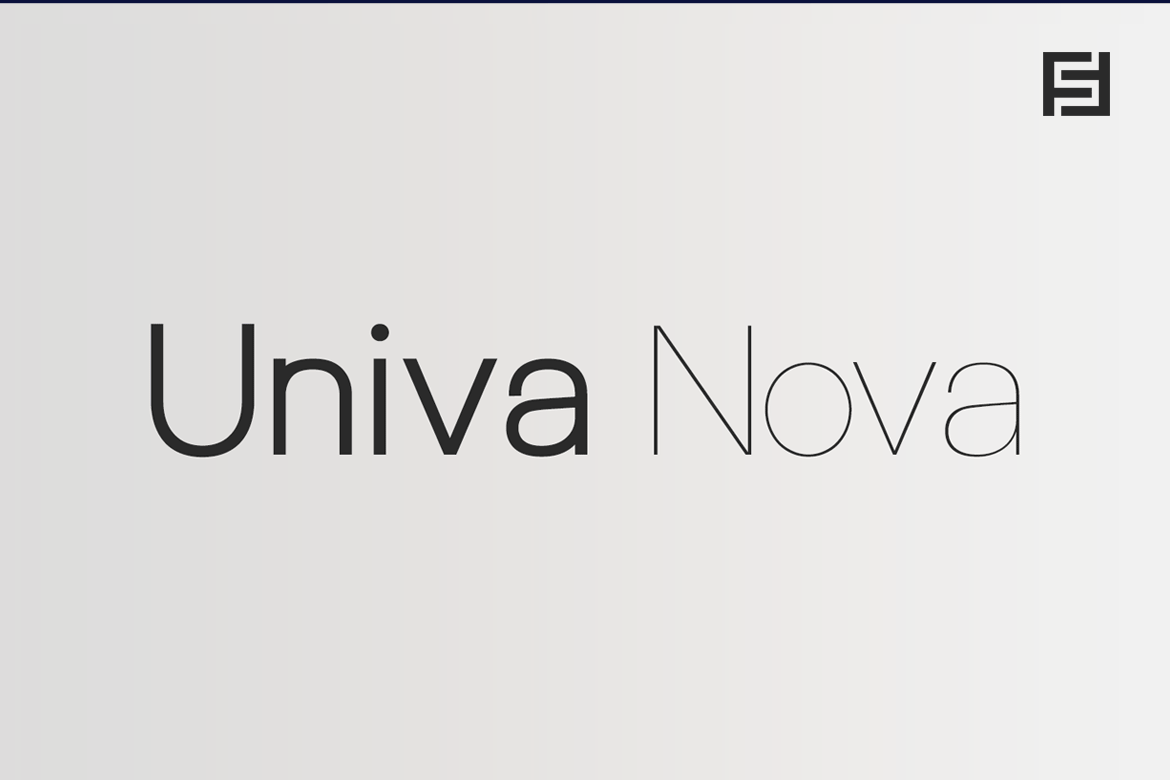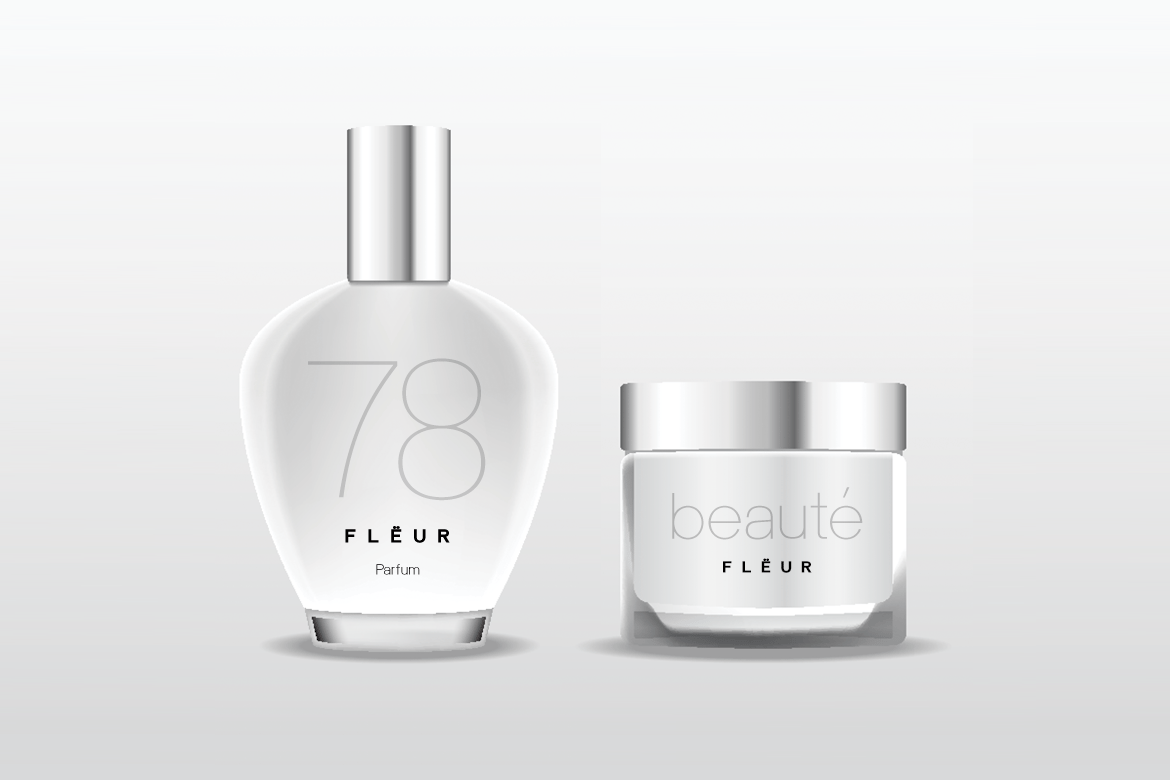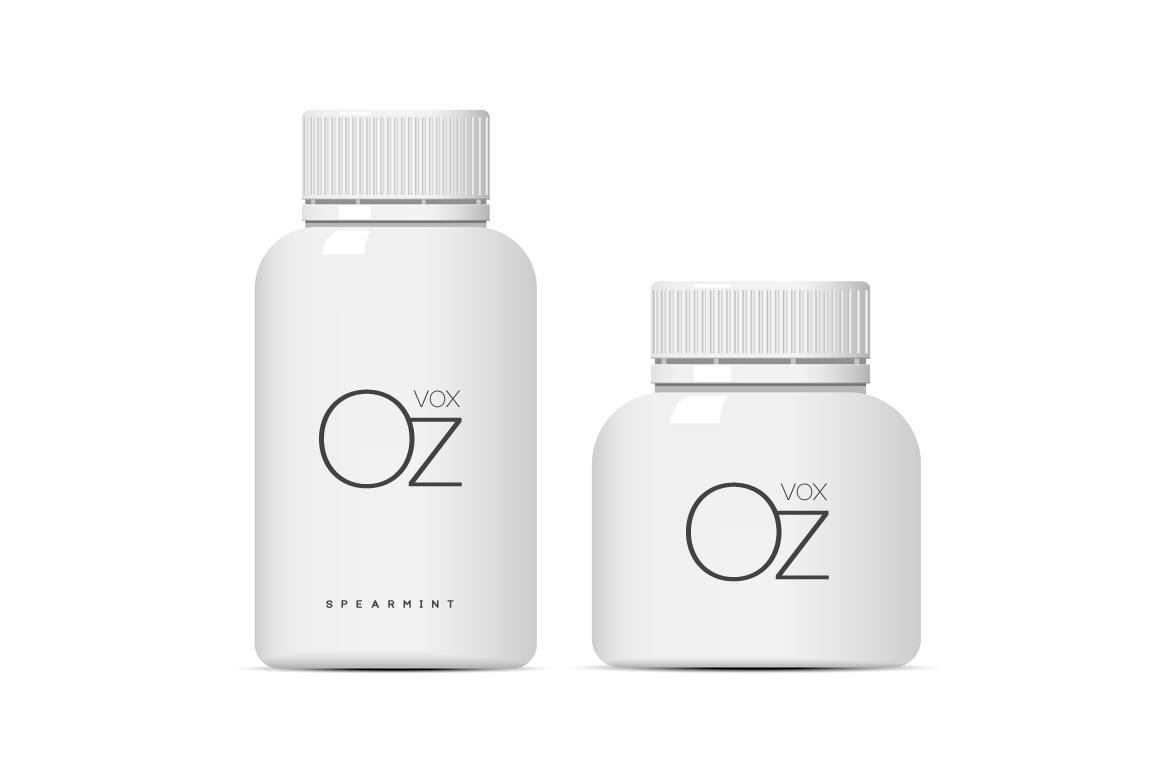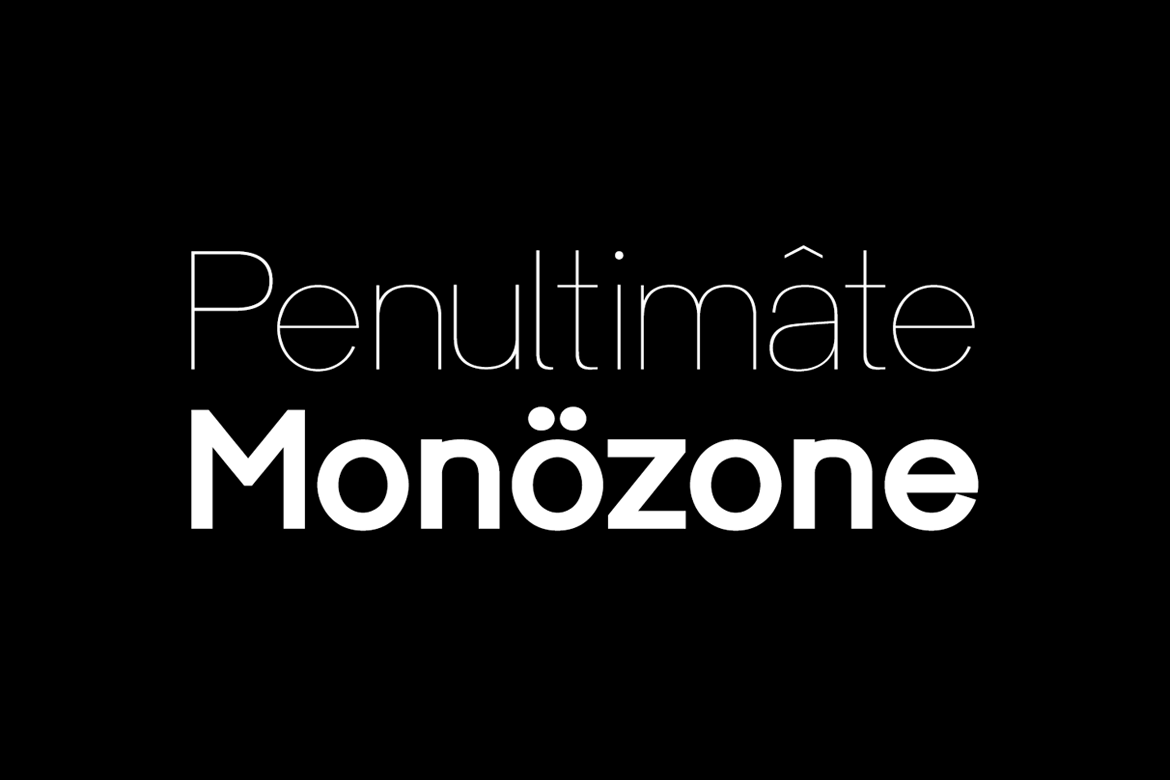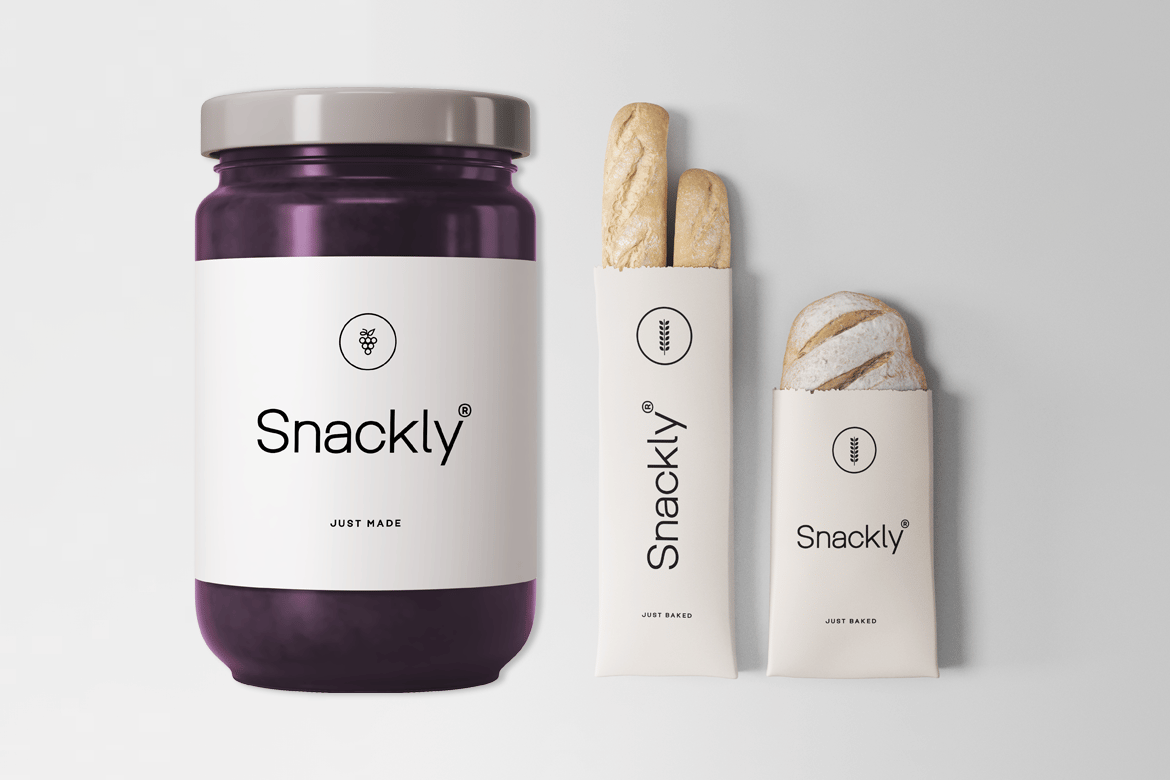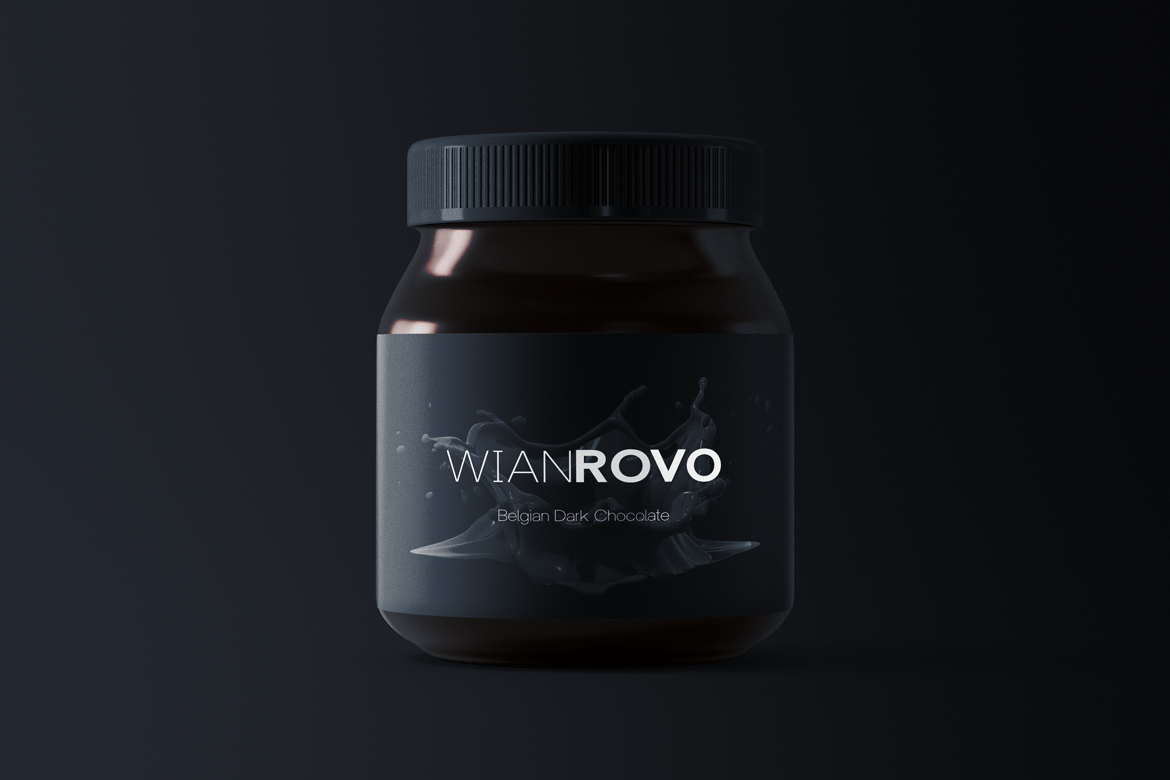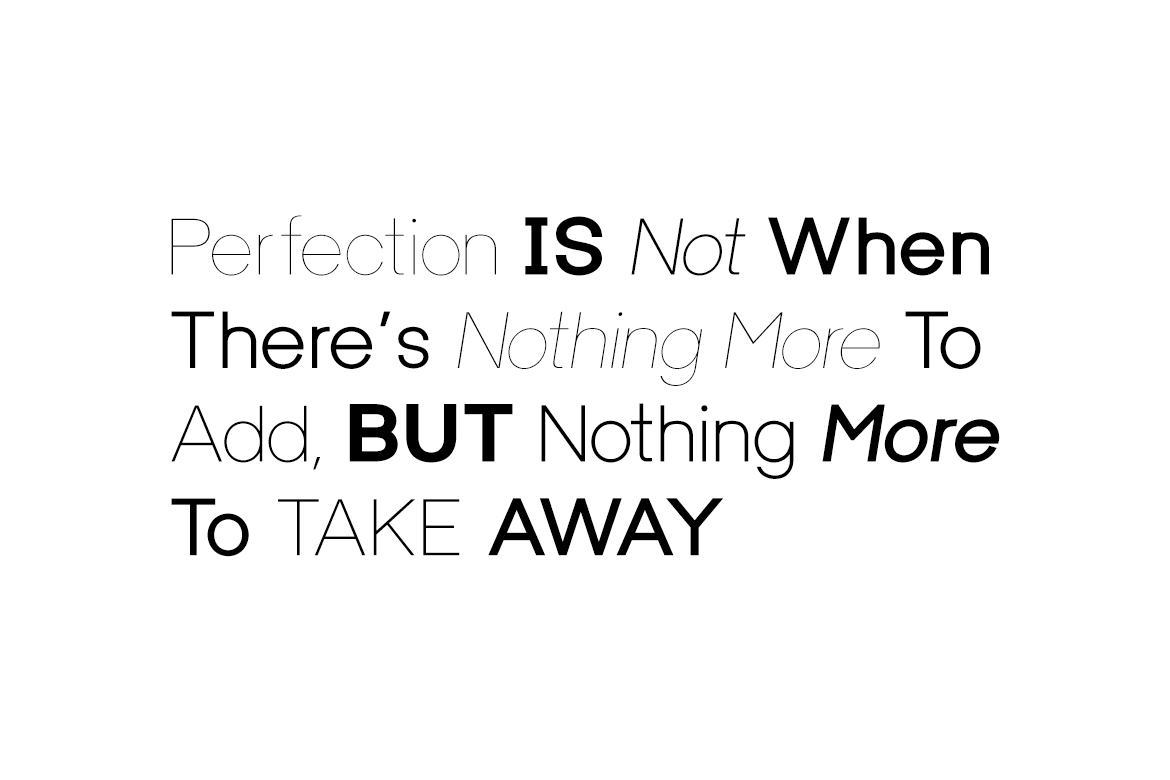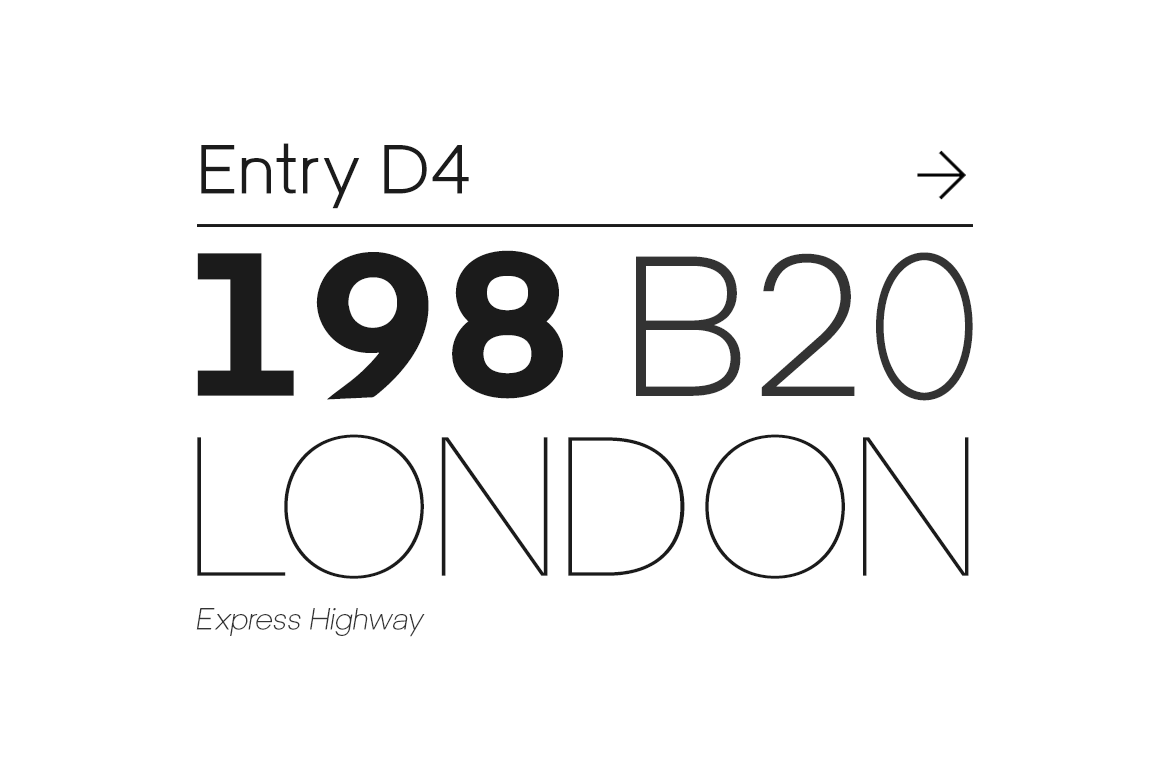
Univa Nova - Minimalist Typeface
Univa Nova is a beautiful minimalist typeface with masterclass design and outstanding usability features. The typeface is inspired by some of the original Swiss design-based branding projects.
Univa Nova is a perfect choice for graphic design, text presentation, web design, print and display use. The typeface can be an amazing option for beautiful branding, logo / logotype design projects, marketing graphics, banners, posters, signage, corporate identities as well as editorial design. Adding extra letter-spacing for the Caps will make this font perfect for minimal headlines and logotypes as shown in promo images here.
The typeface is specially handmade with great OpenType features in mind, each weight includes extended language support including Western European & Central European sets. A total of 306 glyphs are included.